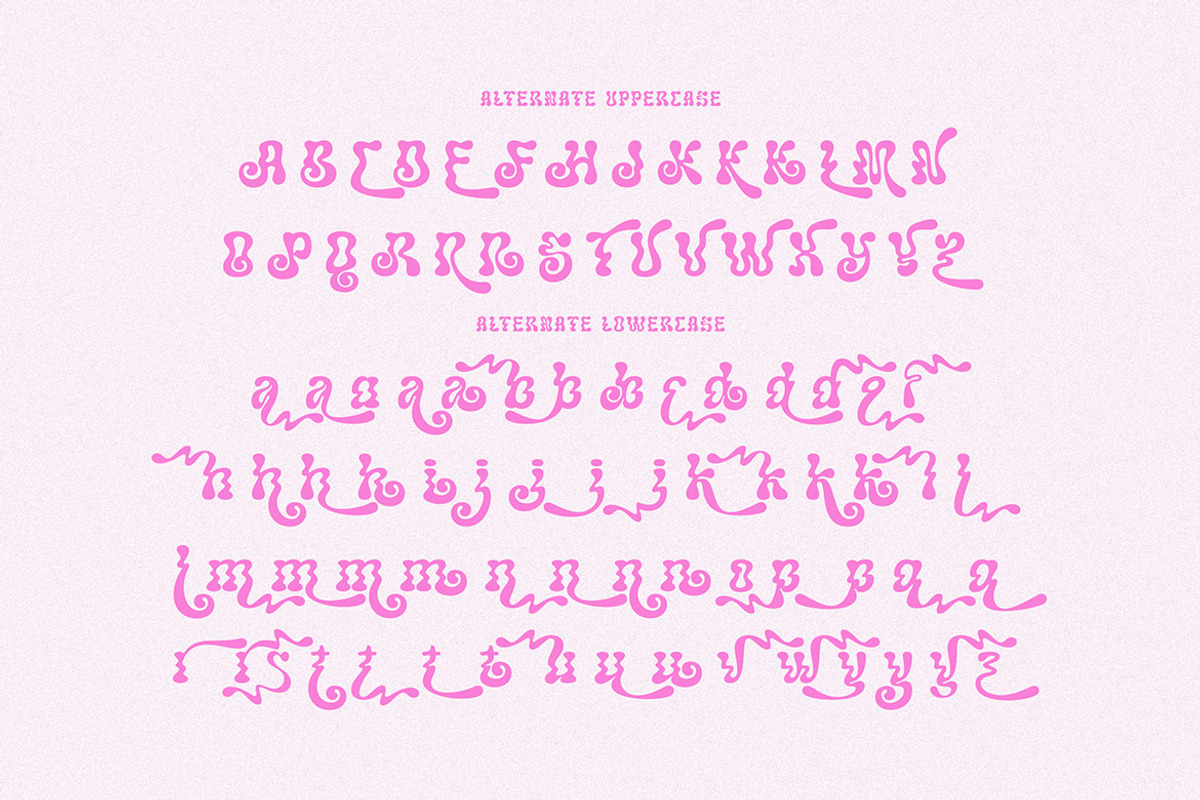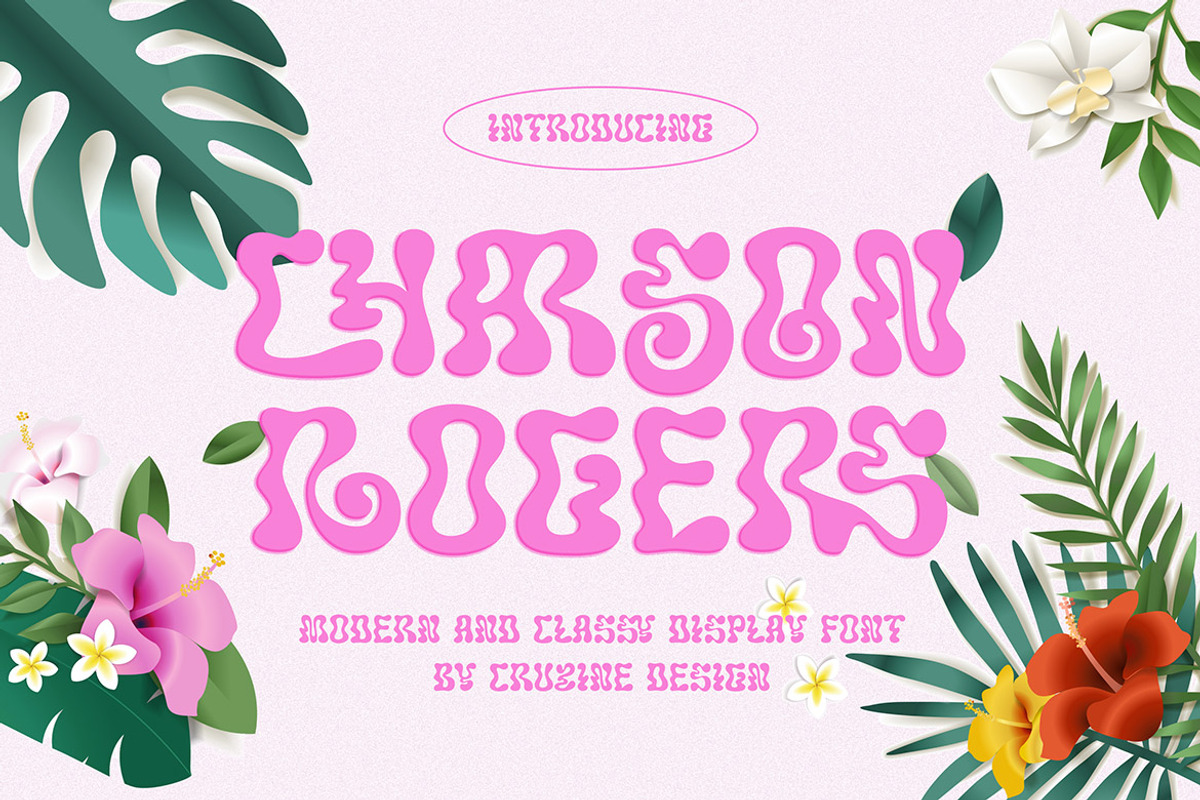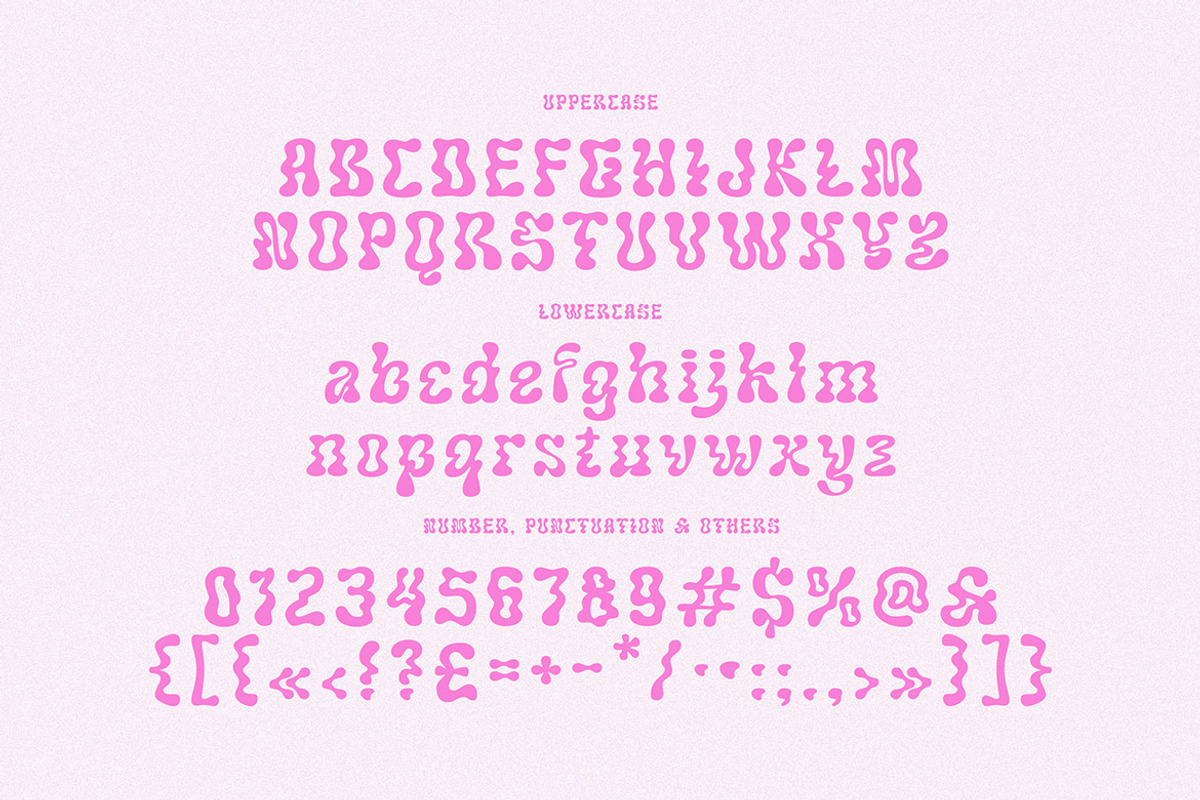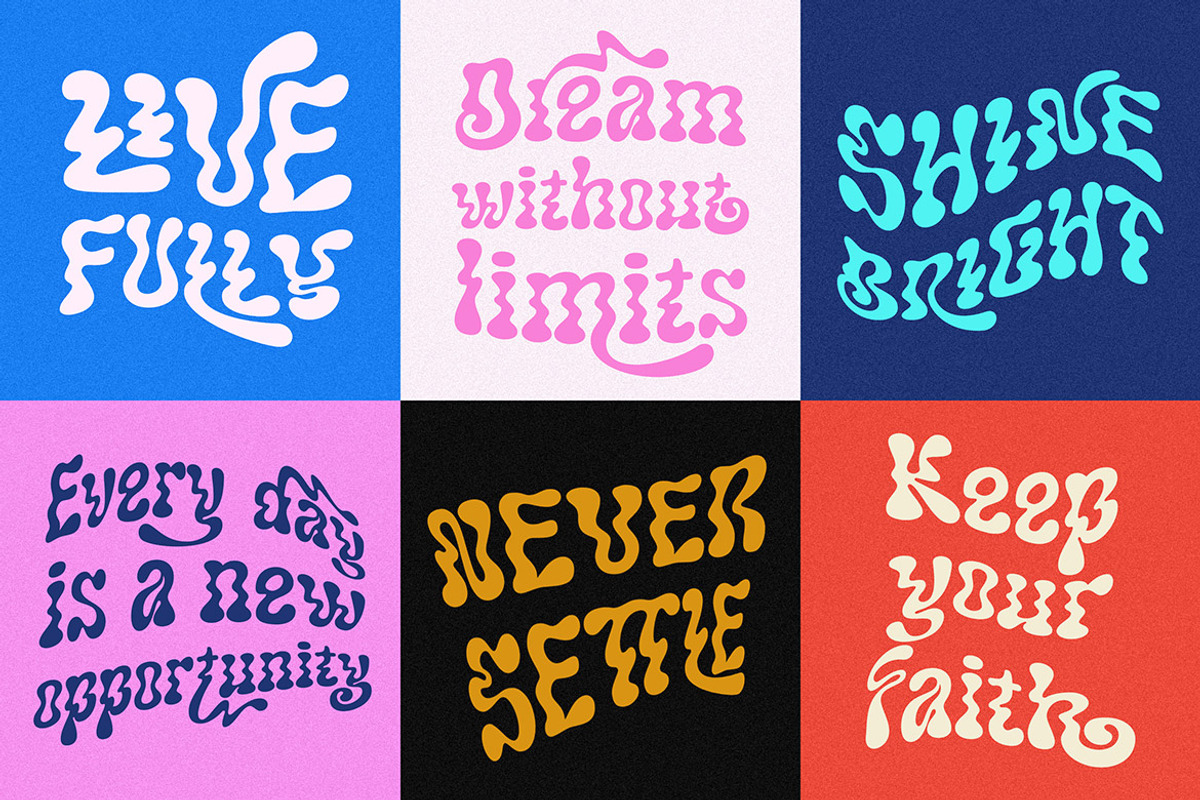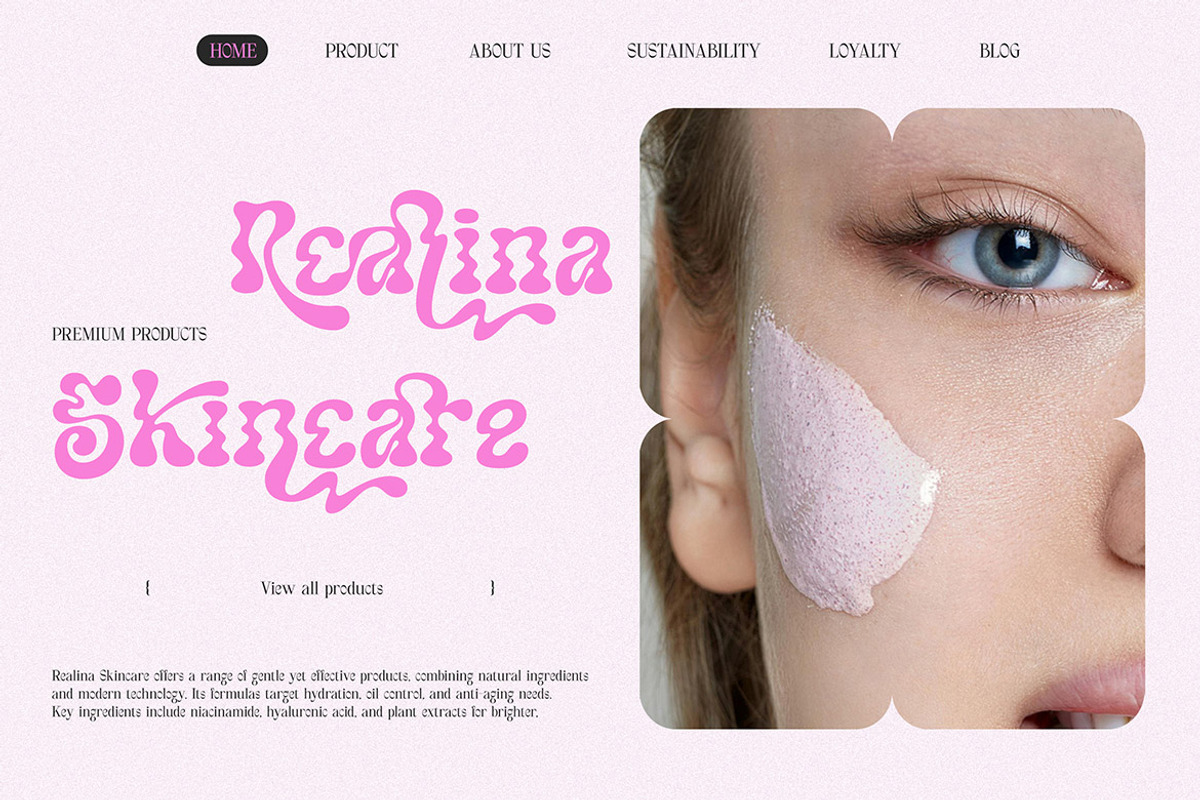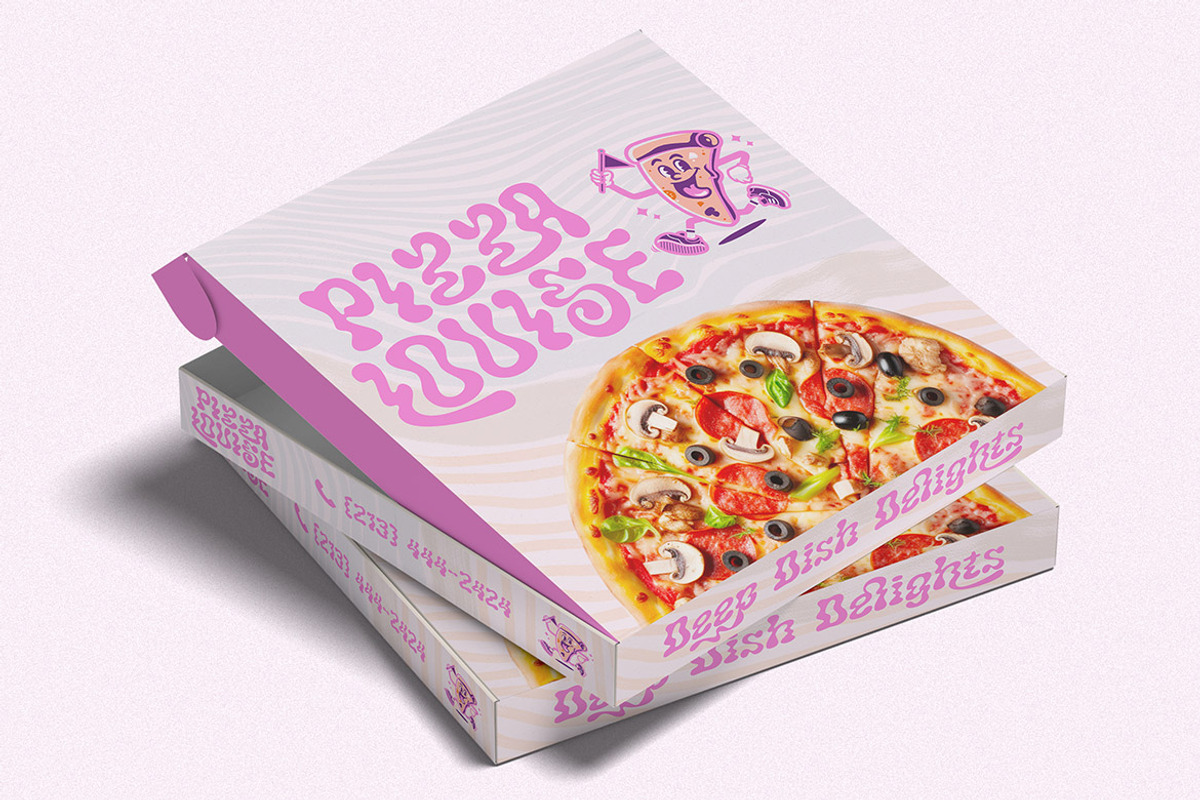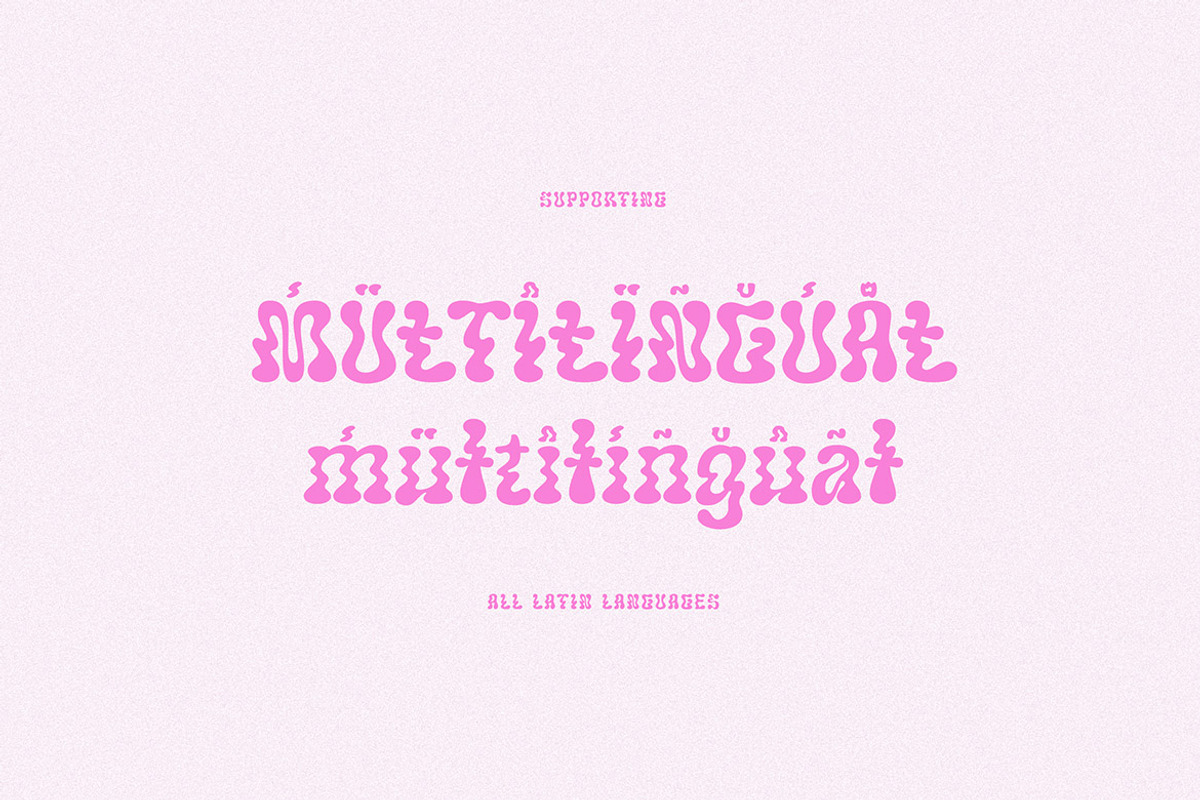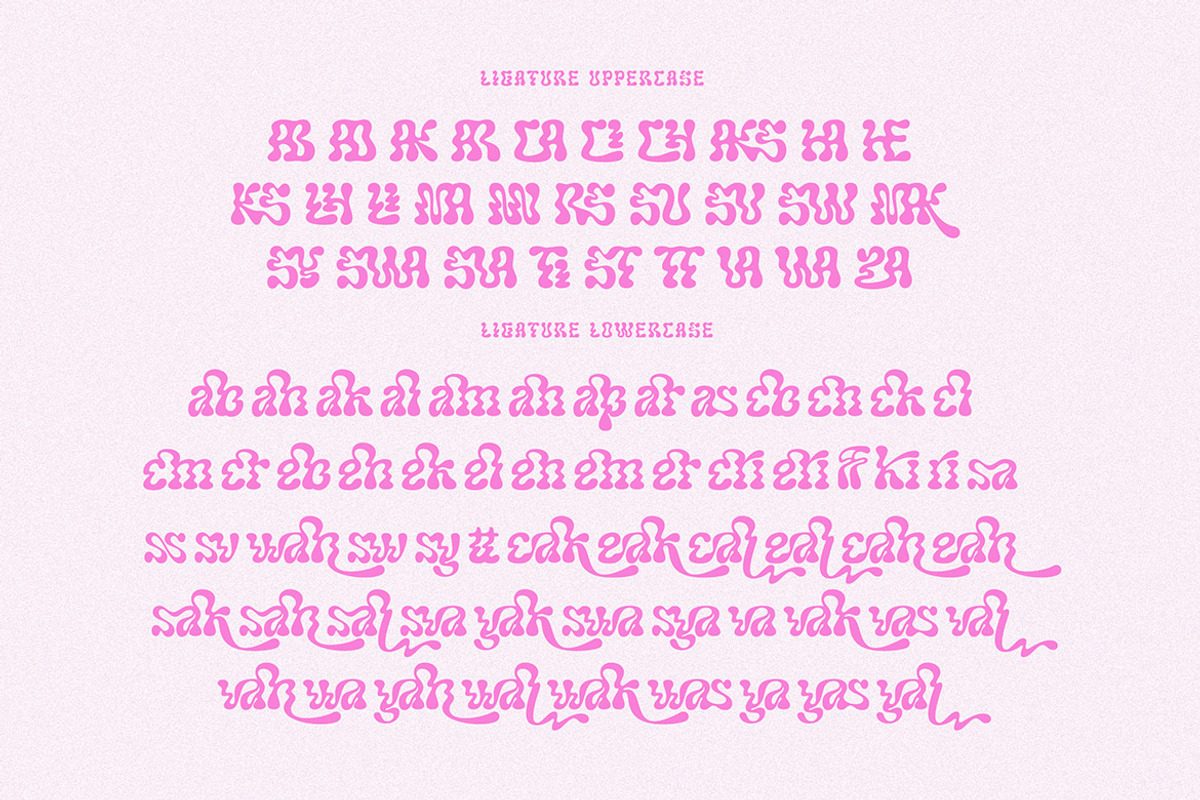
Charson Rogers
Bubbly, groovy, funny, retro & rounded style display font for your new playful projects. Happy, cute, bold and quirky style on Charson Rogers font will be great for any creative branding project. Lot of alternates and ligatures will help you to create unique and original logo design or website header! Enjoy :)
Alternate characters
Lot of ligatures
Great for modern branding projects!!